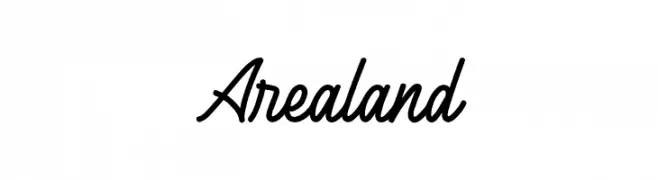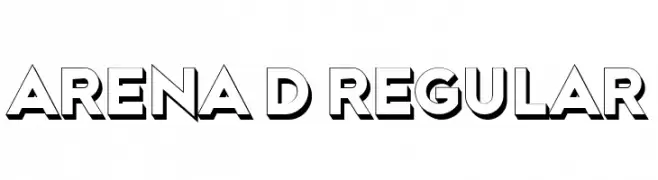
A flowing, cursive font with elegant curves and a modern, handwritten style.
A playful, hand-drawn font with a quirky and artistic style.
An elegant script font with flowing, interconnected letters and ornate flourishes.
A bold, lively script font with fluid, natural handwriting style.
A bold, geometric font with angular, futuristic characters.
A bold, geometric font with a futuristic and modern design.
A playful, handwritten font with dynamic strokes and a lively appearance.
A modern, elegant script font with a fluid, handwritten style.
A delicate and flowing script font with elegant, elongated letterforms.
An elegant, flowing script font with a handwritten style.
A bold, distressed font with a rugged, vintage appearance.
A bold, playful script font with flowing, interconnected strokes.
A graceful and elegant script font with flowing, cursive letters.
An elegant, flowing script font with graceful loops and swirls.
A flowing, cursive script font with elegant curves and loops.
A slanted, flowing script font with elegant, connected strokes.
A playful and elegant script font with flowing, cursive letterforms.
An elegant and flowing script font with intricate loops and swirls.
An elegant and whimsical script font with decorative swirls and artistic flair.
An elegant, whimsical script font with decorative swirls and loops.
A flowing, cursive script font with elegant, connected strokes.
A playful, hand-drawn font with uneven strokes and a whimsical feel.
A fluid and elegant script font with smooth, flowing lines.
A stylish and elegant script font with fluid, connected letterforms.
An elegant and flowing script font with intricate flourishes.
A graceful calligraphy font with flowing, interconnected strokes and elegant flourishes.
An elegant, slanted calligraphy font with graceful lines and artistic flourishes.
An elegant, cursive font with a handwritten style, perfect for sophisticated designs.
A textured, hand-drawn font with expressive brush-like strokes.
A bold, modern font with geometric shapes and high contrast, perfect for decorative use.